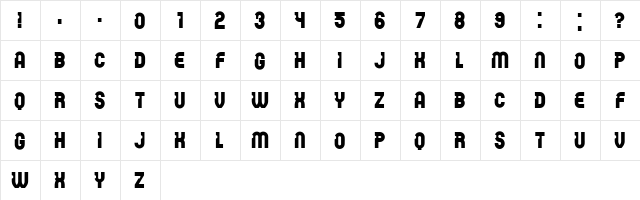
Password Book Regular
Design Context for Password Book Typeface
Password Book offers clean, dependable letterforms without strong stylistic allegiance, making it a practical choice for designers who need flexibility.
Pro Tip: Use Password Book in both headline and body roles to test its range before committing to a single application.